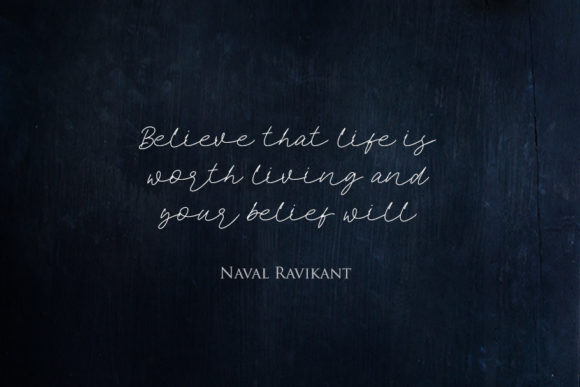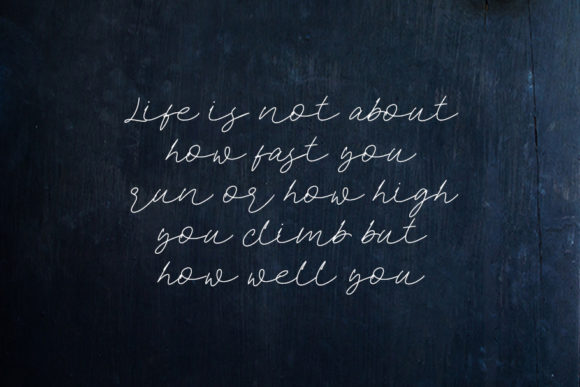
Canela Font: Elevate Your Designs with Elegance and Flair
Are you on the hunt for a font that exudes sophistication, elegance, and a touch of whimsy? Look no further than Canela Font, a delicate and flowing handwritten font that is sure to bring your designs to life. With its beautiful and well-balanced characters, Canela Font is the perfect addition to any creative project, from crafting and DIY endeavors to graphic design and digital art.
The Beauty of Canela Font
Canela Font is a masterclass in elegant typography. Its delicate lines and curves create a sense of movement and fluidity, giving your designs a sense of dynamism and energy. The font’s characters are meticulously crafted to be well-balanced and harmonious, making it easy to pair with a wide range of design styles and aesthetics.
Whether you’re creating a logo, a poster, or a social media graphic, Canela Font is the perfect choice for designers and crafters who want to add a touch of sophistication and refinement to their work. The font’s flowing lines and curves also make it ideal for use in invitations, cards, and other paper crafts.
One of the standout features of Canela Font is its incredible versatility. Its elegant and refined aesthetic makes it suitable for a wide range of design applications, from:
- Social media graphics and ads
- Blog and website design
Whether you’re a seasoned designer or a crafty DIY enthusiast, Canela Font is sure to become a go-to choice for any project that requires a touch of elegance and sophistication.
Why Choose Canela Font?
- Unique and eye-catching: Canela Font’s delicate lines and curves create a truly unique and eye-catching aesthetic that is sure to grab attention.
- Elegant and refined: The font’s elegant and refined aesthetic makes it perfect for designs that require a touch of sophistication and luxury.
- Highly versatile: Canela Font can be used in a wide range of design applications, from digital art to crafting and DIY projects.
- Easy to read: Despite its delicate lines and curves, Canela Font is highly legible and easy to read, making it perfect for body text and other applications where readability is key.
Canela Font is a truly exceptional handwritten font that is sure to elevate your designs to the next level. With its delicate lines and curves, elegant aesthetic, and high versatility, this font is perfect for designers and crafters who want to add a touch of sophistication and refinement to their work. So why wait? Download Canela Font today and start bringing your most creative ideas to life!